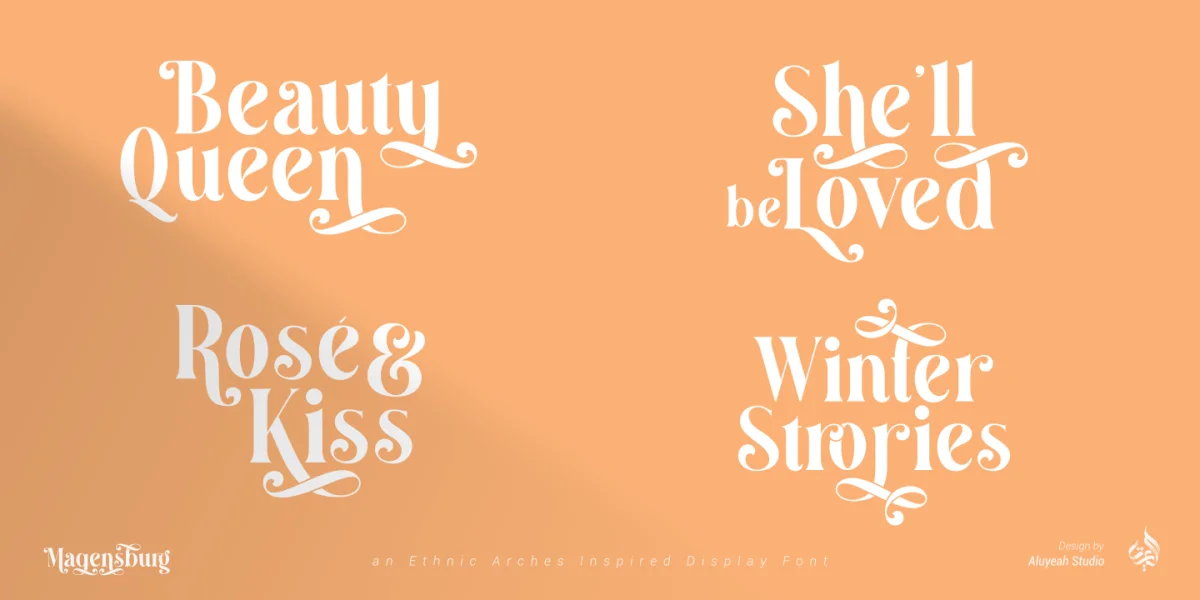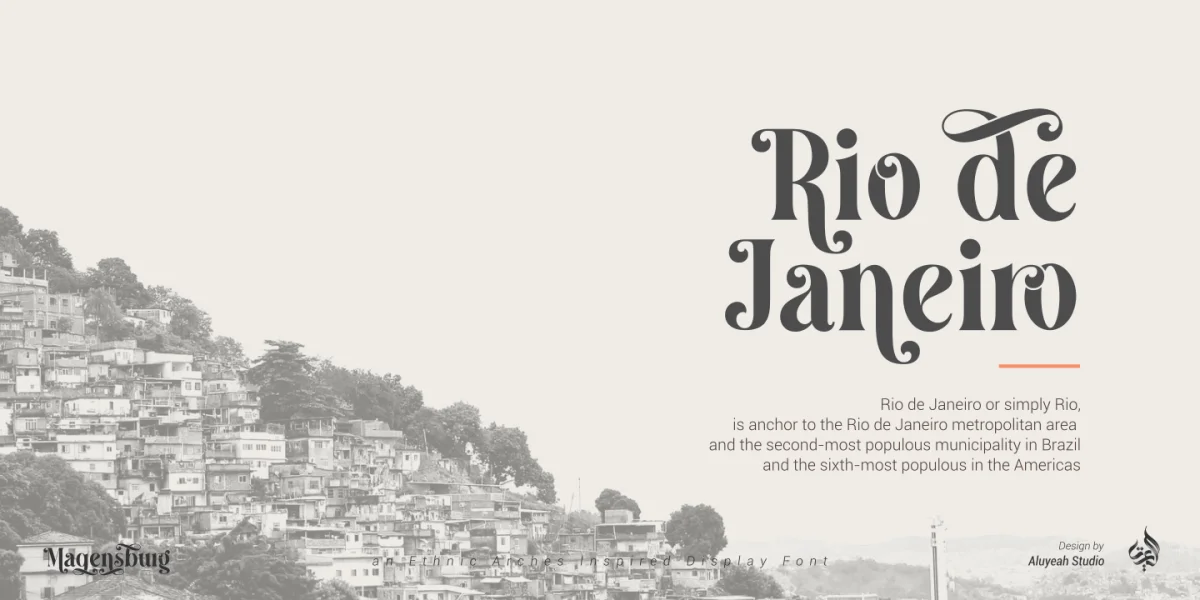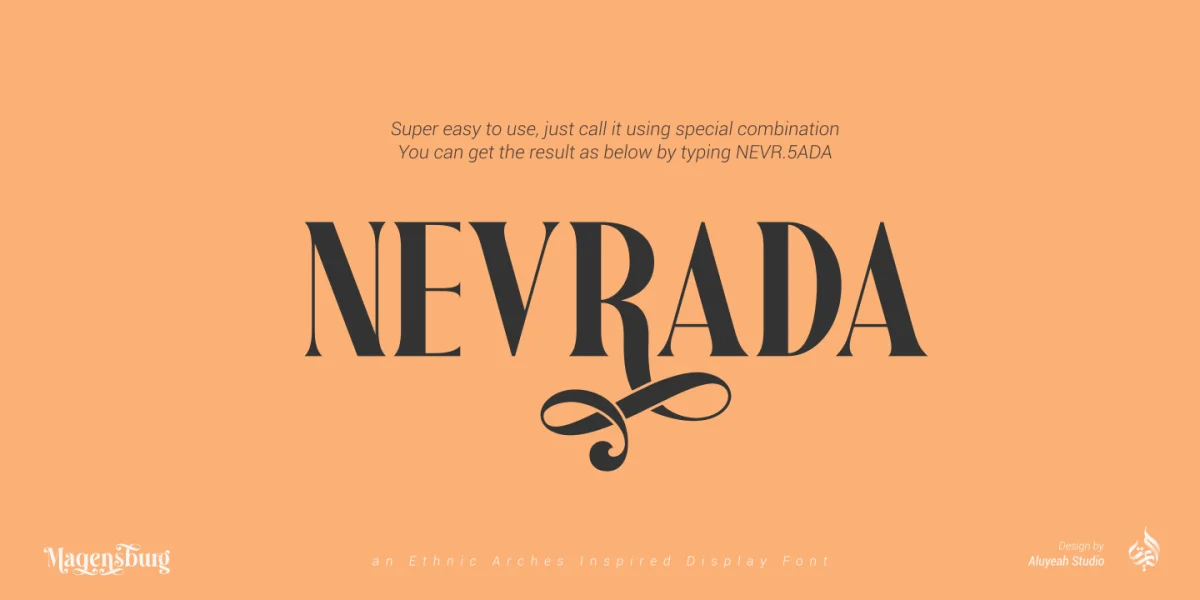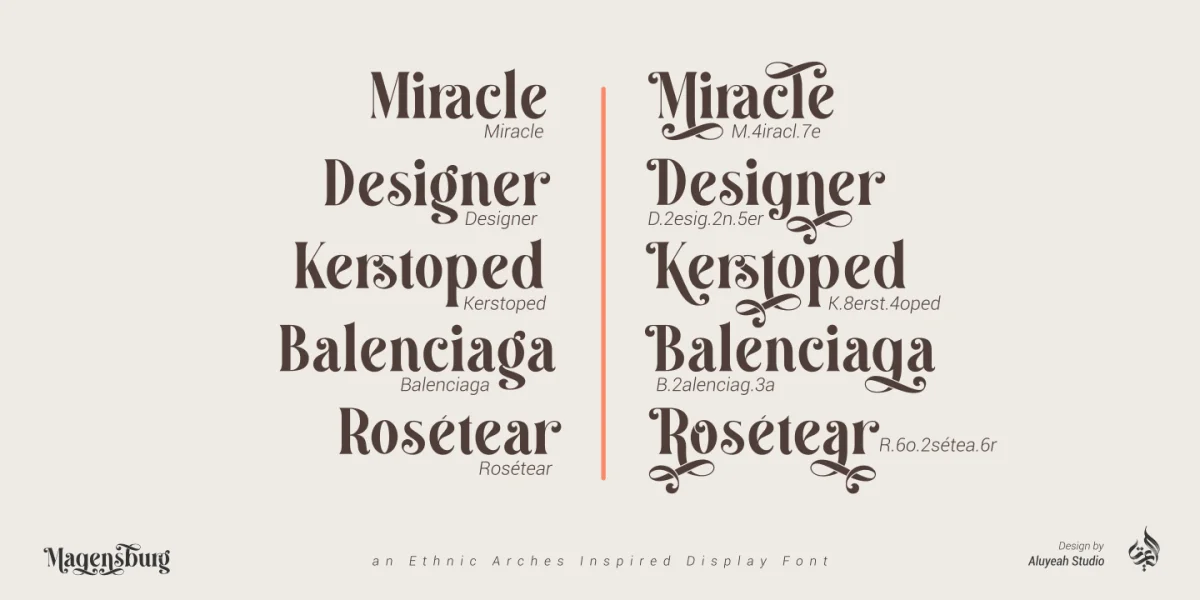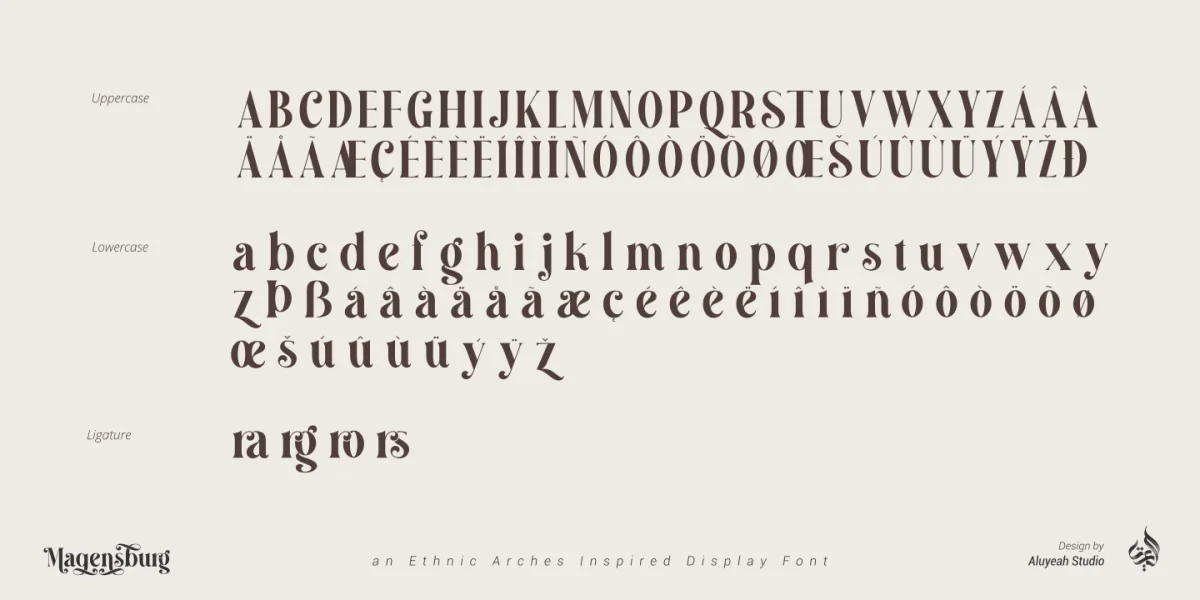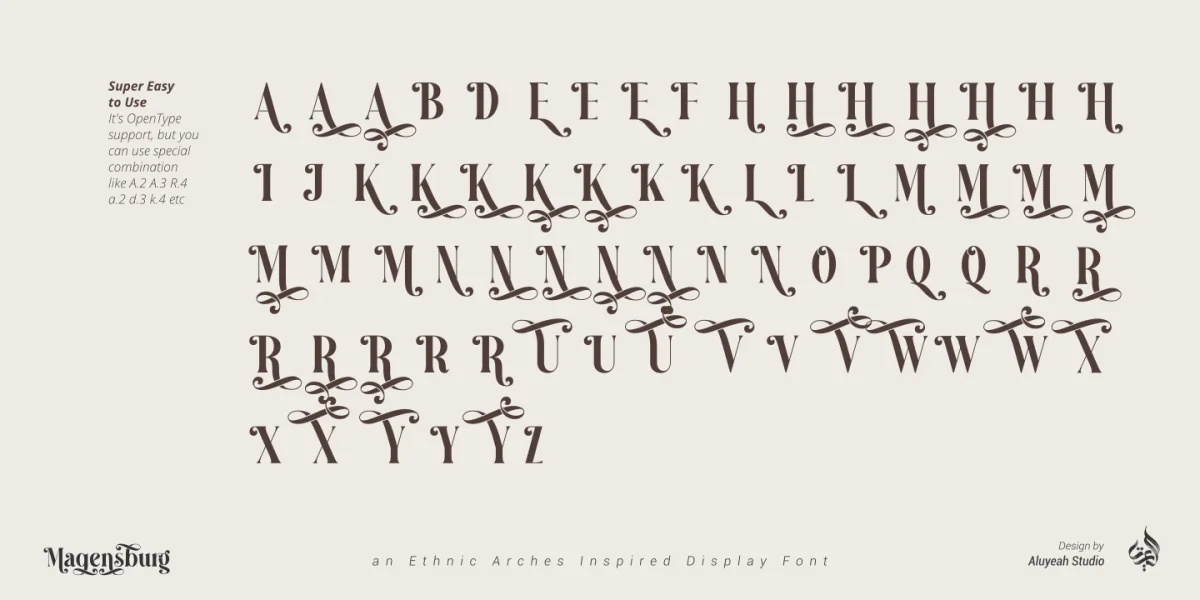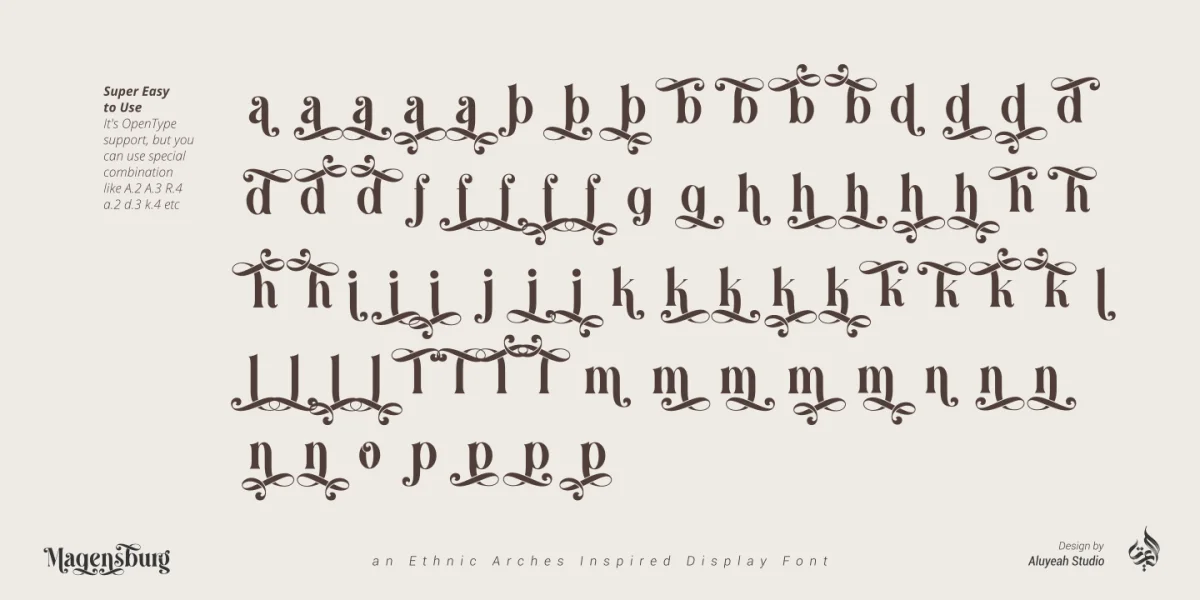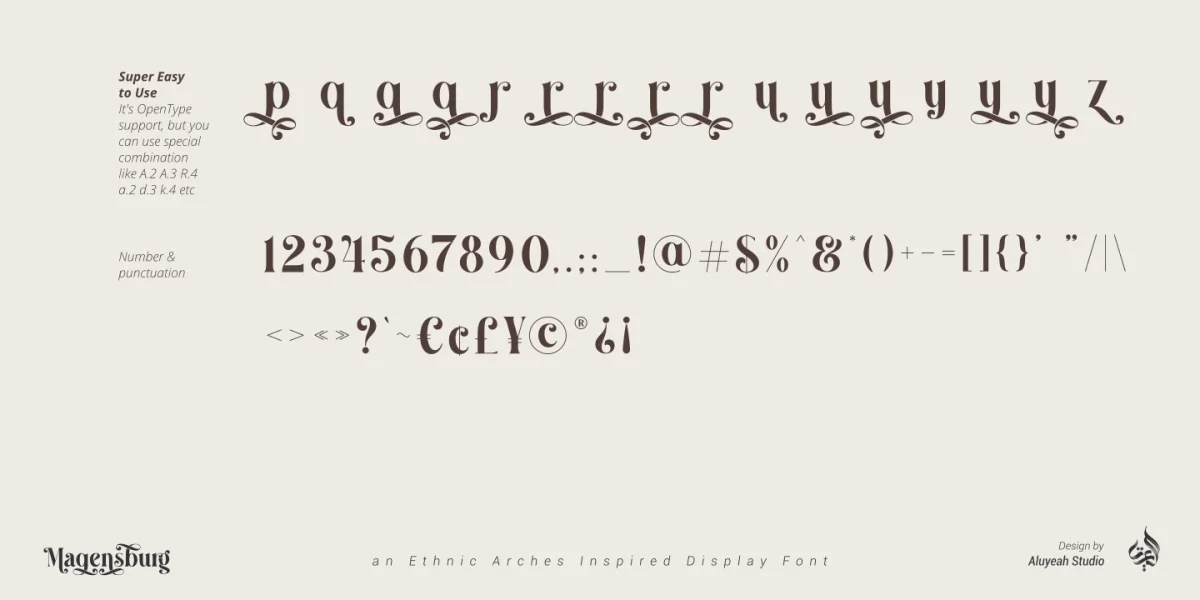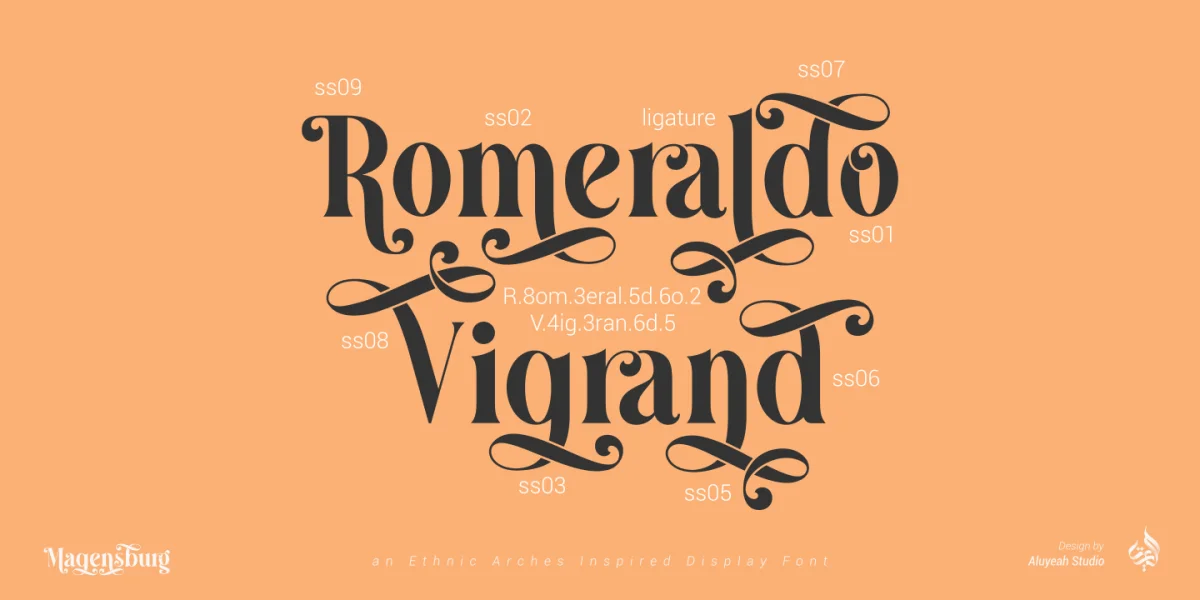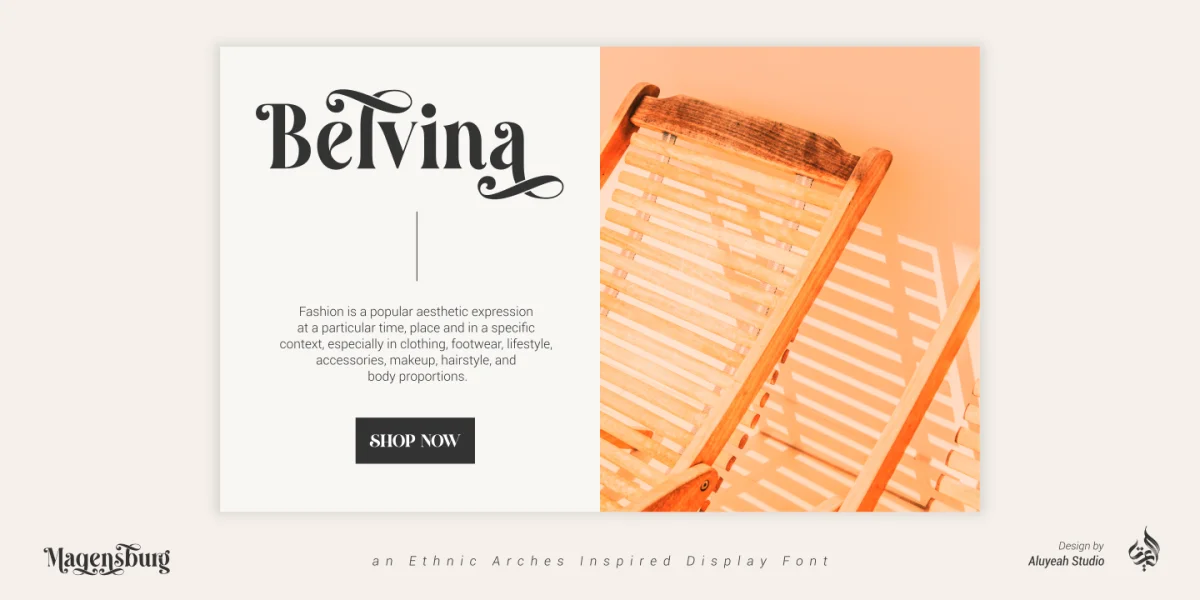
To get results like the preview just type M.8ag.3en.3sb.6urg
Hallo alle! Magensburg is an ethnic arches inspired display font. This font was carefully crafted and inspired ethnic arches in the world. In general, it creates a luxurious and mysterious look in design.
Super Easy to Use alternates - It's OpenType support but you can easly call alternates character using special combination like A.2 R.4 h.3 etc so you dont need special software